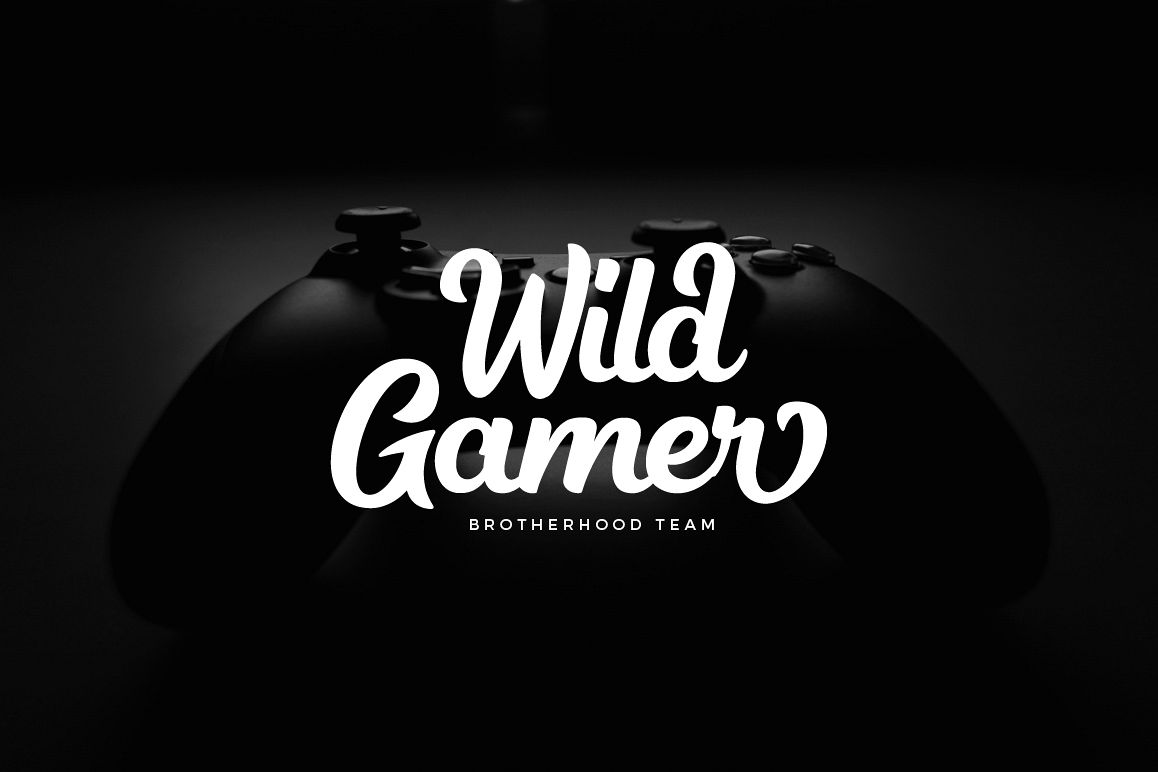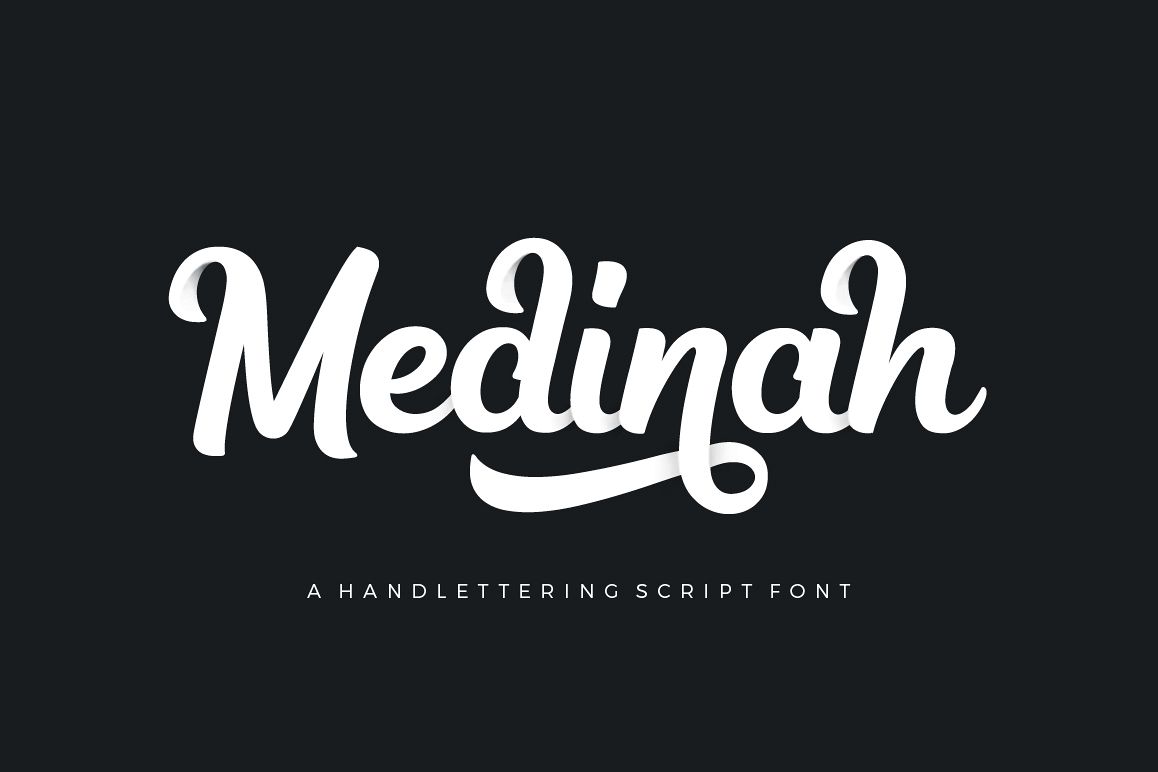
Medinah
Medinah is a handlettering script font. Medinah a very good for logotype, letterhead, poster, apparel design, label, website header, fashion design, name tag, quotes, t-shirts, packaging and any more.
• Uppercase & lowercase
• Stylistic alternatives
• International characters (Multilingual)
• Punctuation & symbols